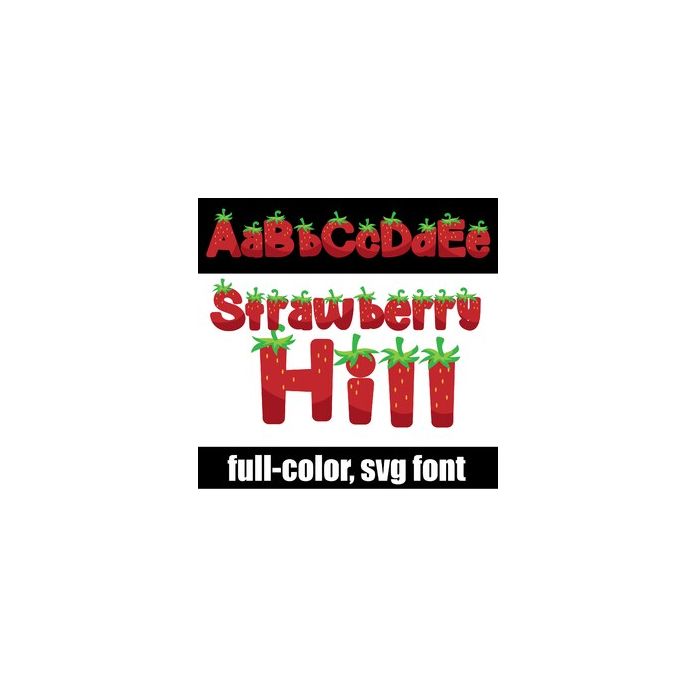
This full-color font features strawberry letters and a full strawberry for the letter "o". This font works best for titles, displays, posters and more. Please note color fonts will show as black in non compatible programs. This font type is compatible with Silhouette Studio.